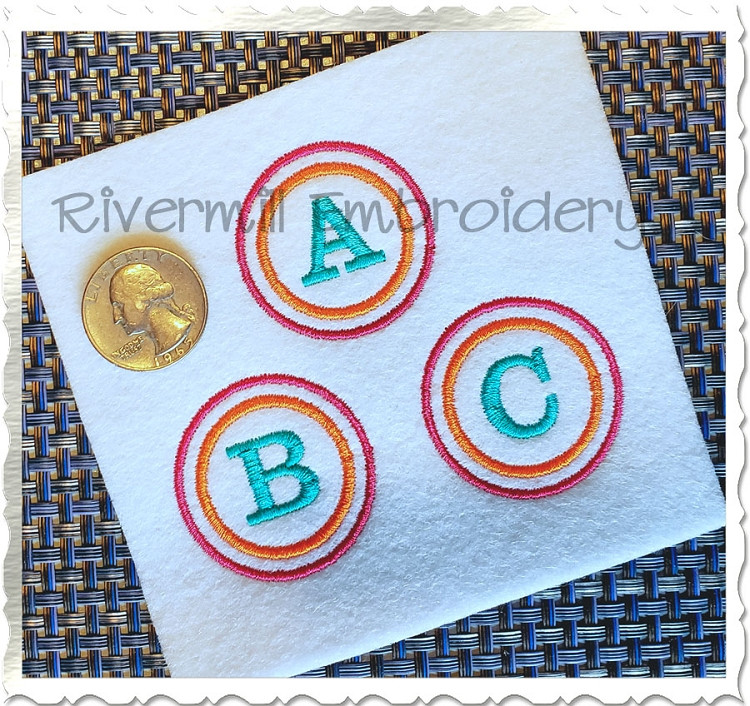
Small Double Circle Initial Monogram Machine Embroidery Font
This font comes with upper case letters inside a double circle. The sizes included are:
The measurement is of the circle, not the letter.